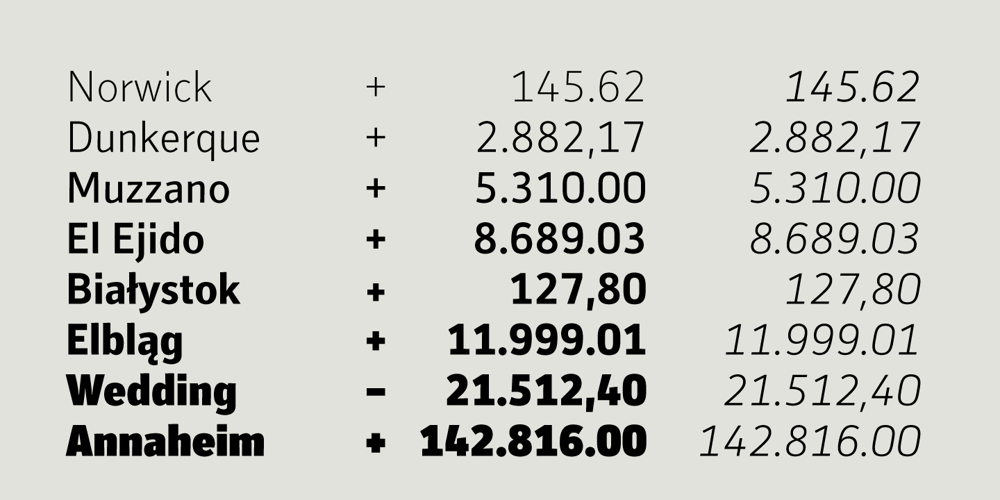
Secca
Secca font
Secca Font Family was designed by Andreas Seidel and published by astype. Secca contains 24 styles and family package options. Secca is a fresh and versatile typeface series. With its workhorse qualities, Secca is perfectly suited for a wide range of applications – especially where legibility and economy are important factors. Secca is rooted in the tradition of early German Grotesk typefaces, but is tailored for the needs of today, with a wide language support and many typographic features and extras. » pdf specimen « The core family comes in nine weights from Thin to Ultra Black plus another three Hairline weights – each with italics, small caps and italic small caps. While the weights from Light to Bold perform well in text sizes, the more extreme styles give extra freedom for Headlines & Signage. For setting tables and charts, Secca offers tabular figures, fractions, currency signs and mathematic operators which share the same fixed width throughout the entire range of weights. This special feature is called “weight duplexing” and is a time saver for designers of annual reports and other figure-heavy texts.